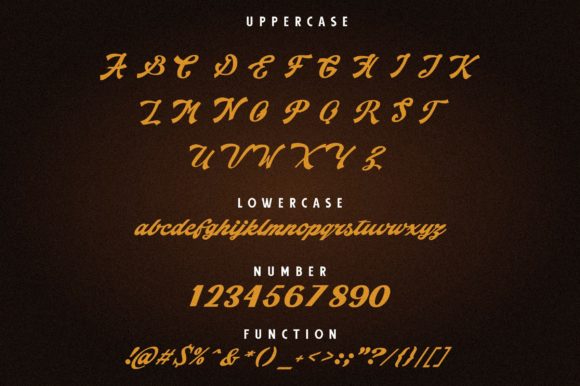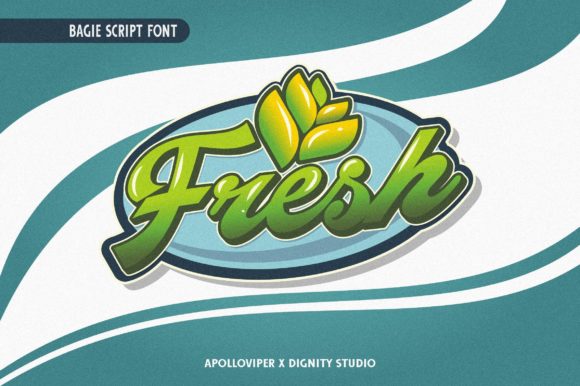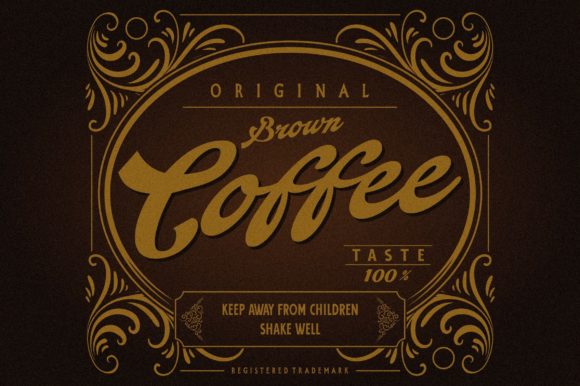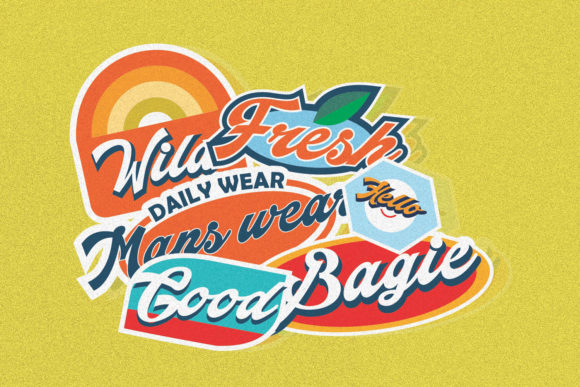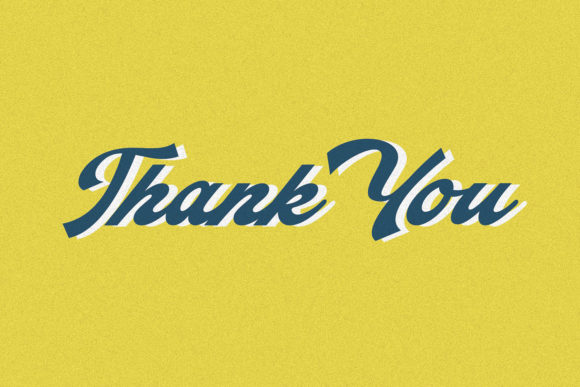
Discover the Unique Charm of Bagie Font: Elevate Your Designs with Elegance
In the world of typography, a font can make all the difference in the aesthetic and effectiveness of a design. For designers and crafters looking to add a touch of elegance and uniqueness to their projects, the Bagie Font stands out as an exceptional choice. This article explores the distinctive features of the Bagie Font, its versatility, and how it can enhance both formal and non-formal designs.
What is Bagie Font?
Bagie is a unique and eye-catching script font that has been gaining attention for its neat and beautiful arrangement of letters. Unlike more traditional fonts, Bagie offers a fresh and modern look that can instantly elevate the visual appeal of any design. Whether you’re working on a branding project, a wedding invitation, or a digital platform, Bagie provides the perfect blend of sophistication and charm.
Key Features of Bagie Font
- Unique and Eye-Catching: The Bagie Font boasts a distinctive style that sets it apart from more common script fonts. Its unique letterforms are designed to capture attention and leave a lasting impression.
- Neat and Beautiful Arrangement: One of the standout features of Bagie is its meticulous design. Each letter is crafted to ensure a harmonious flow, making it pleasing to the eye and highly readable.
- Versatility: Bagie is incredibly versatile, suitable for a wide range of design applications. From formal events like weddings and corporate branding to more casual projects such as posters and digital blogs, Bagie adapts seamlessly.
- Elegance and Sophistication: The font exudes an air of elegance and sophistication, making it perfect for designs that require a touch of class and refinement.
Using Bagie Font in Formal Designs
For formal designs, such as wedding invitations, luxury brand logos, and official documents, Bagie Font can add a level of sophistication and prestige. Its elegant lettering can help convey a sense of tradition and reliability while still offering a modern twist. Here are some ideas for using Bagie in formal contexts:
- Wedding Invitations: Create stunning wedding invitations that set the tone for an elegant and memorable event.
- Corporate Branding: Use Bagie to develop a unique and recognizable brand identity that stands out in your industry.
- Event Flyers: Design professional and eye-catching flyers for conferences, galas, and other formal events.
Using Bagie Font in Non-Formal Designs
Bagie Font is not just limited to formal designs; it can also add a unique flair to more casual and creative projects. Here are some ways to incorporate Bagie into non-formal designs:
- Digital Blogs: Enhance your blog’s visual appeal with Bagie, making your content more engaging and attractive to readers.
- Social Media Graphics: Create eye-catching social media posts and stories that stand out in crowded feeds.
- Posters and Flyers: Design vibrant and captivating posters and flyers for events, promotions, or informational campaigns.
Tips for Maximizing the Impact of Bagie Font
To get the most out of Bagie Font, consider the following tips:
- Pair with Complementary Fonts: Combine Bagie with simpler fonts to create contrast and highlight key information.
- Adjust Size and Color: Experiment with different sizes and colors to ensure the font fits perfectly with your design’s overall aesthetic.
- Use in Headers and Titles: Utilize Bagie for headers and titles to draw attention and create visual hierarchy.
| Font Name | Bagie Font |
| Author | dignity.std |
Bagie Font offers a unique blend of elegance, sophistication, and modernity, making it an excellent choice for designers and crafters looking to elevate their projects. Whether you’re working on formal designs like wedding invitations and corporate branding or more casual projects such as digital blogs and social media graphics, Bagie can add a distinctive touch that sets your work apart. Experiment with Bagie Font today and discover how it can transform your designs into visually stunning creations.